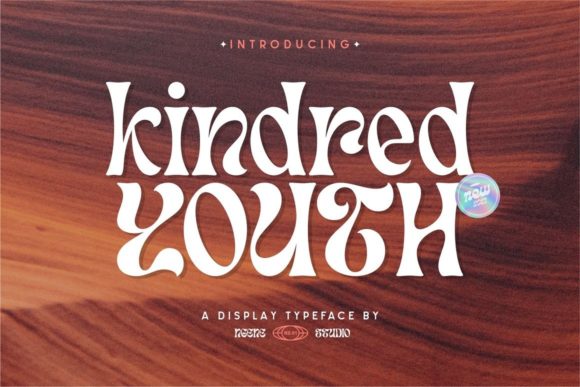
Introducing Kindred Youth Font, the ultimate font choice for fashion-forward individuals seeking the best font for headings. Created by the talented Ngene, this font is designed to captivate and elevate your brand's aesthetic.
Drawing inspiration from both vintage and modern styles, Kindred Youth Font is the perfect addition to your design arsenal. Its versatility allows it to be seamlessly integrated into various projects, including logo fonts, lettering, tickets, Instagram stories, labels, book titles, and more.
With its eye-catching and unique design, this font will effortlessly enhance your appearance and leave a lasting impression on your audience. Its stunning curves and attention to detail make it a true work of art.
Not only does Kindred Youth Font excel in aesthetics, but it also offers practicality. With its multilingual support, you can confidently design across different countries, reaching a wider audience without any language barriers.
Imagine the impact this font can have on your fashion brand's identity. From captivating logo designs to mesmerizing book titles, Kindred Youth Font will ensure that your brand stands out from the competition.
But it doesn't stop there. This font is more than just a visual delight; it evokes emotions and tells a story. Its vintage charm creates a sense of nostalgia, while its modern twist adds a touch of contemporary flair.
Step into a world of endless creativity and possibilities with Kindred Youth Font. Let your imagination run wild as you experiment with various design projects. Its versatility knows no bounds, making it the go-to choice for fashion enthusiasts, creative professionals, and anyone looking to make a statement with their typography.